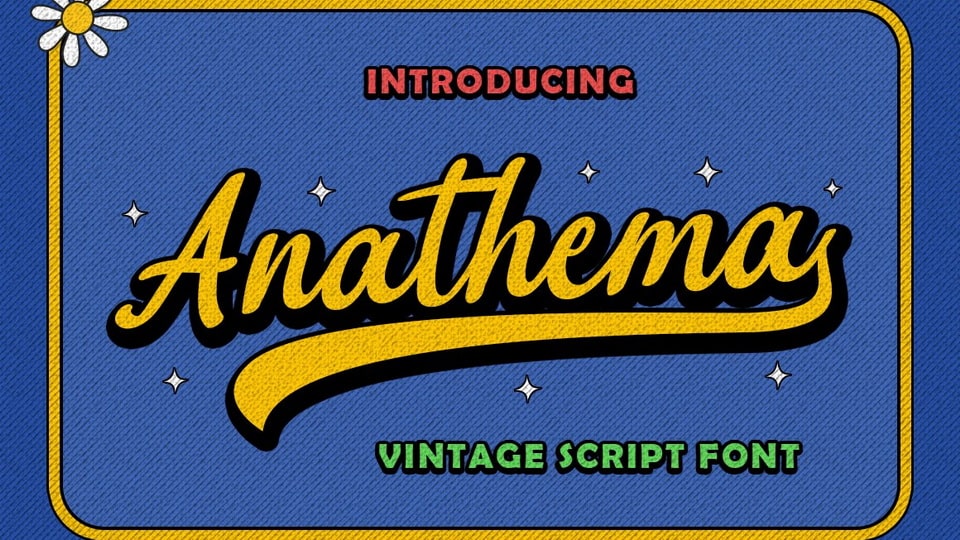
Download Anathema font, a retro themed script typeface created using beautiful hand strokes, perfect to quickly create awesome designs with this font!